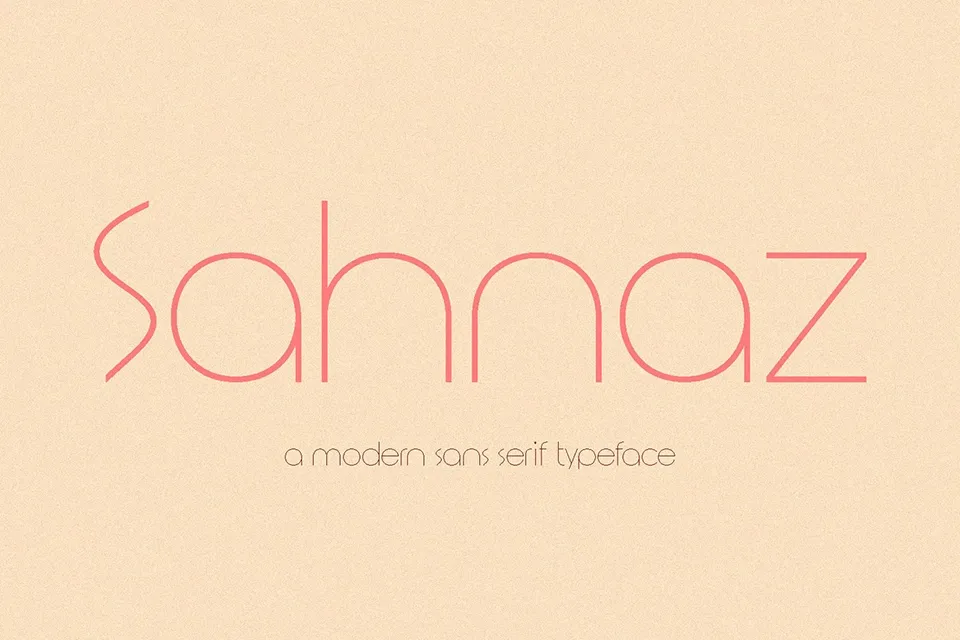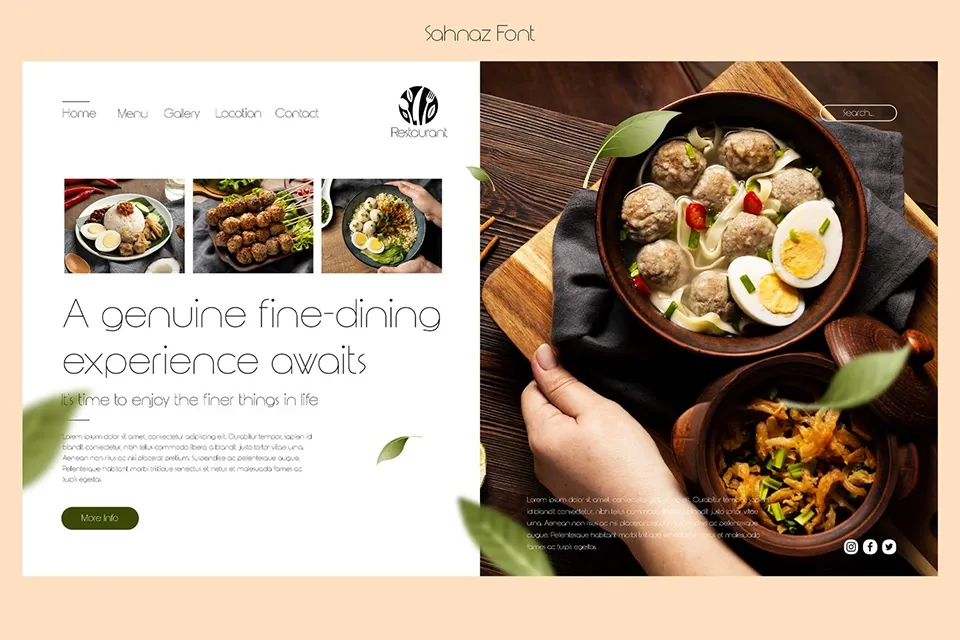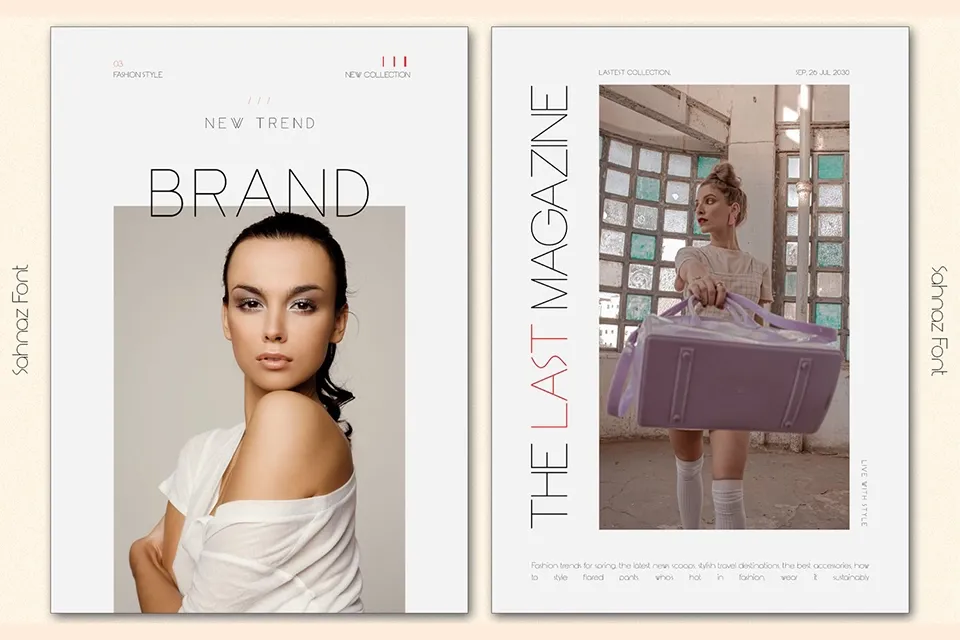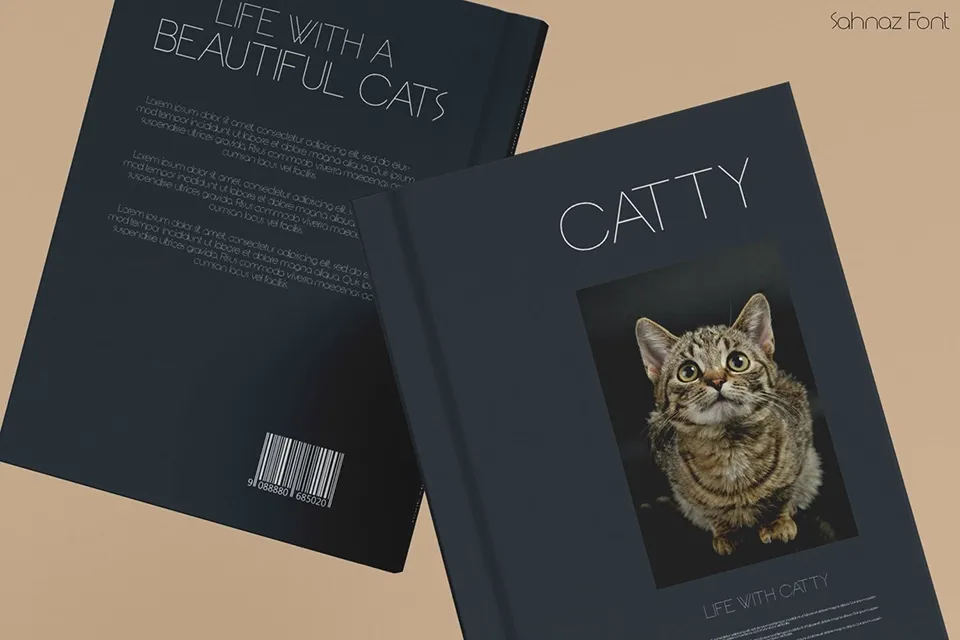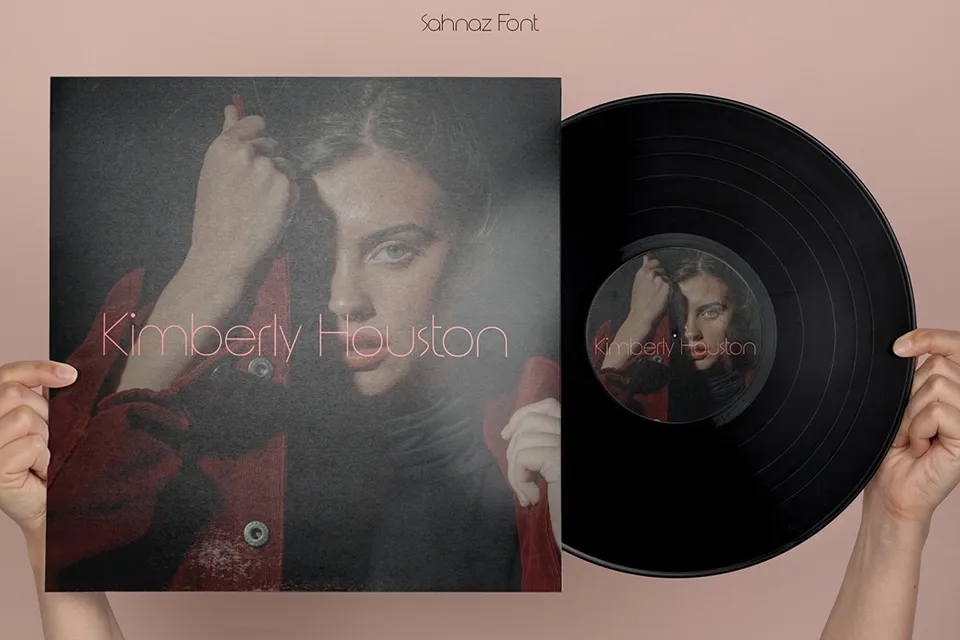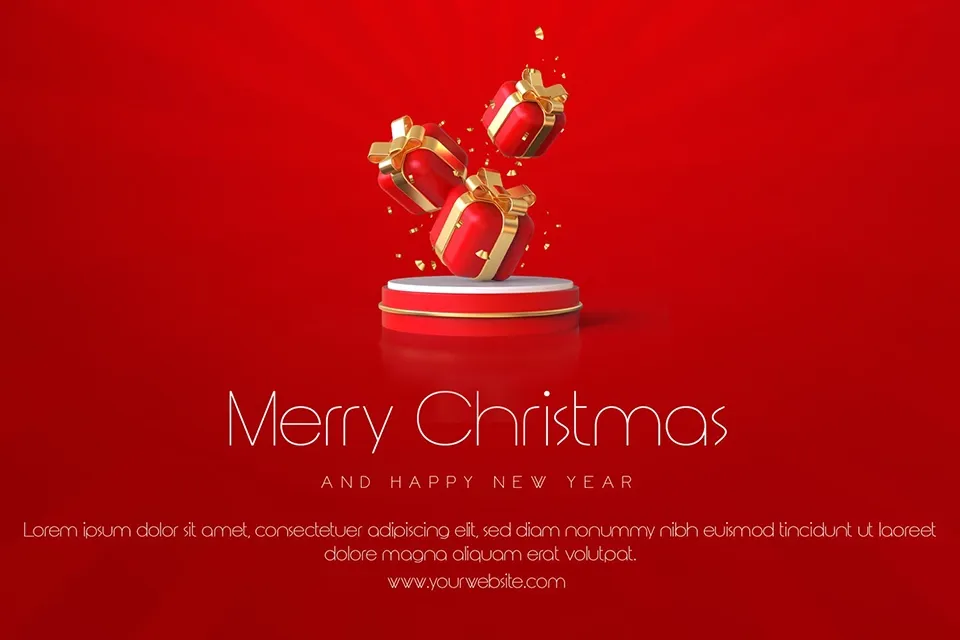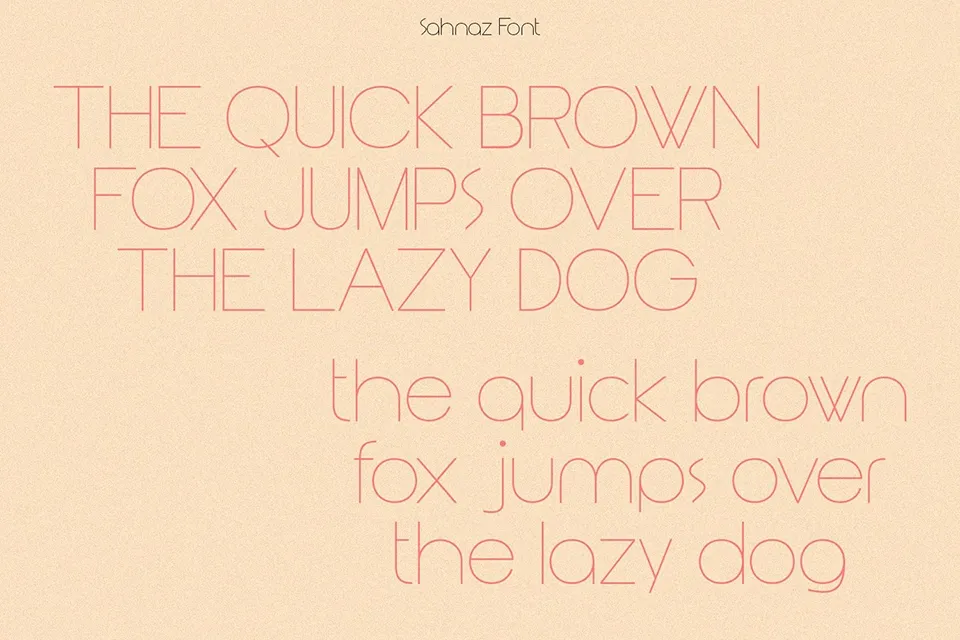
Sahnaz Font
Sahnaz Font is a sleek and modern sans serif typeface designed to bring elegance and simplicity to your creative projects. With its clean, minimalistic lines and soft curves, Sahnaz exudes sophistication and versatility, making it perfect for branding, logos, editorial designs, and digital content. The font’s refined structure ensures excellent readability while maintaining a stylish and contemporary aesthetic. Whether used for bold headlines or subtle text, Sahnaz adds a touch of modern charm to any design. Its timeless appeal makes it an ideal choice for professionals seeking a polished and professional look in their work.